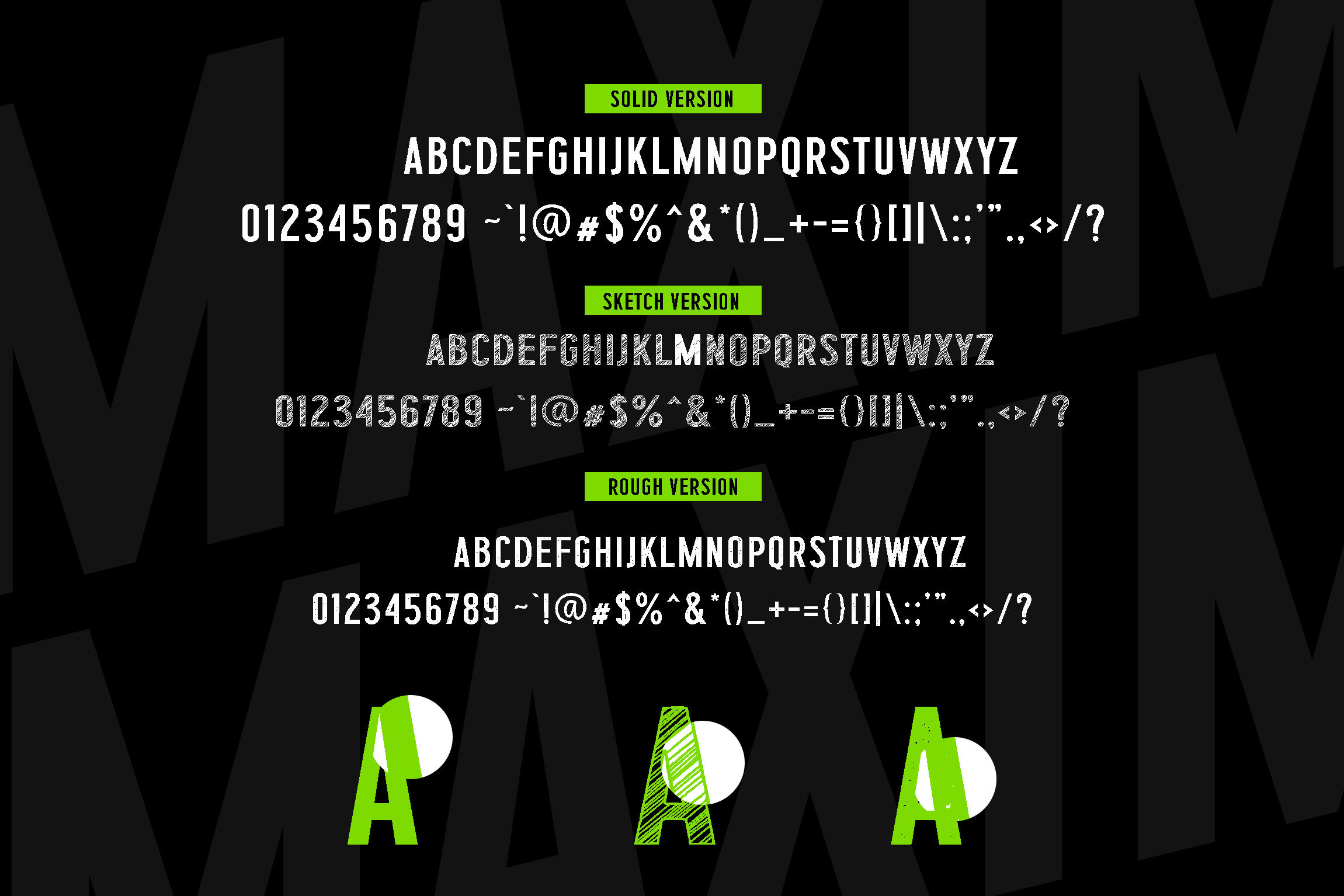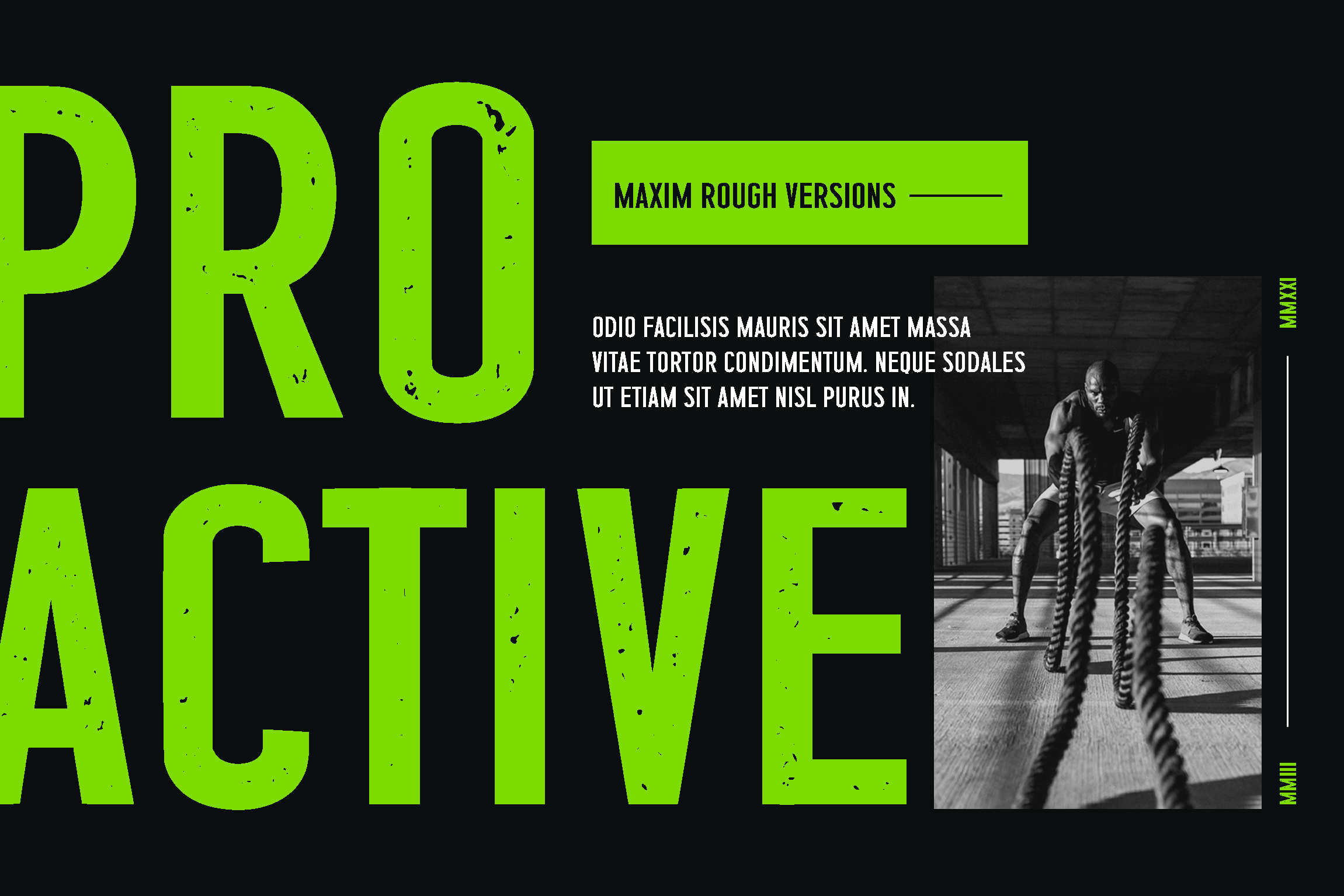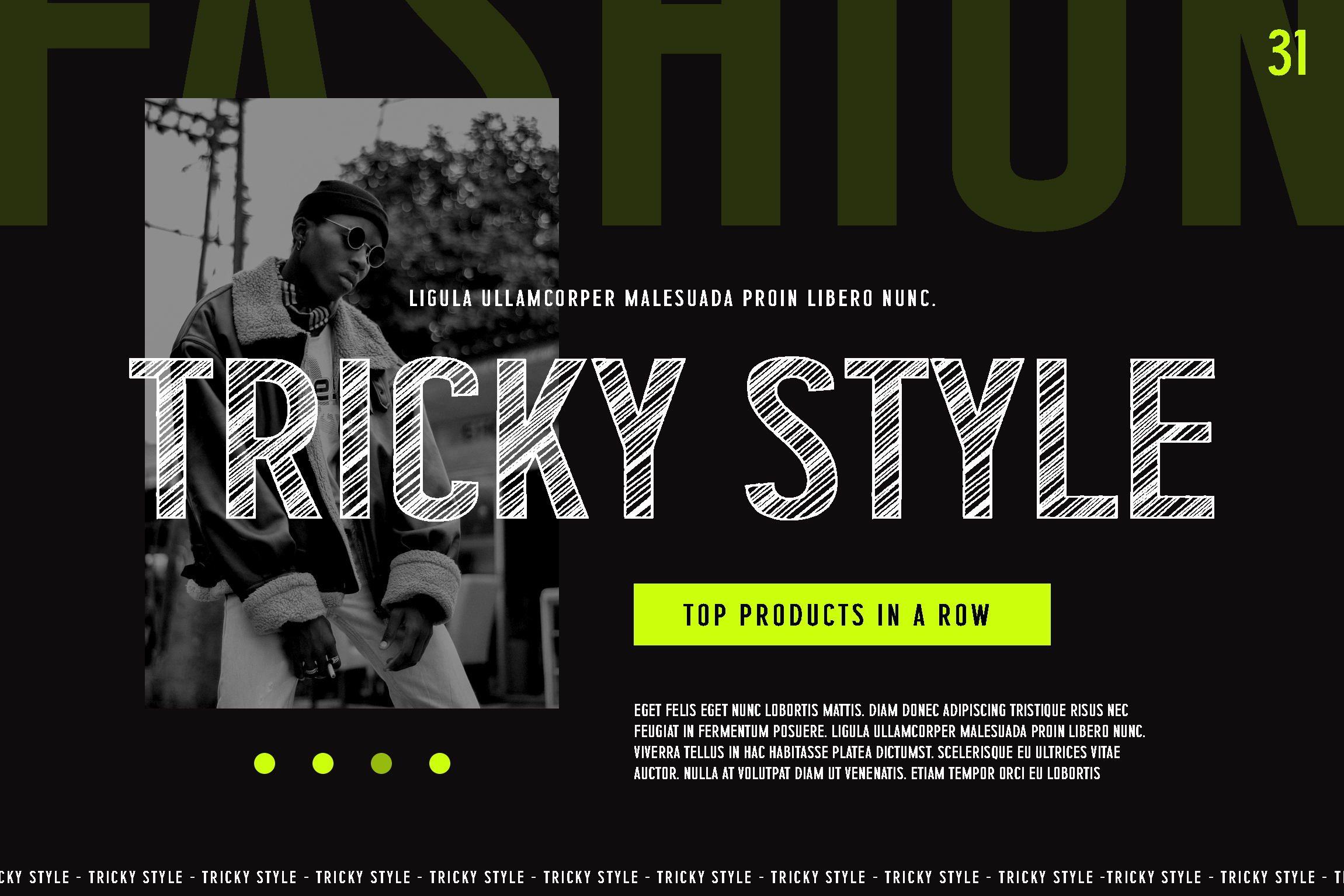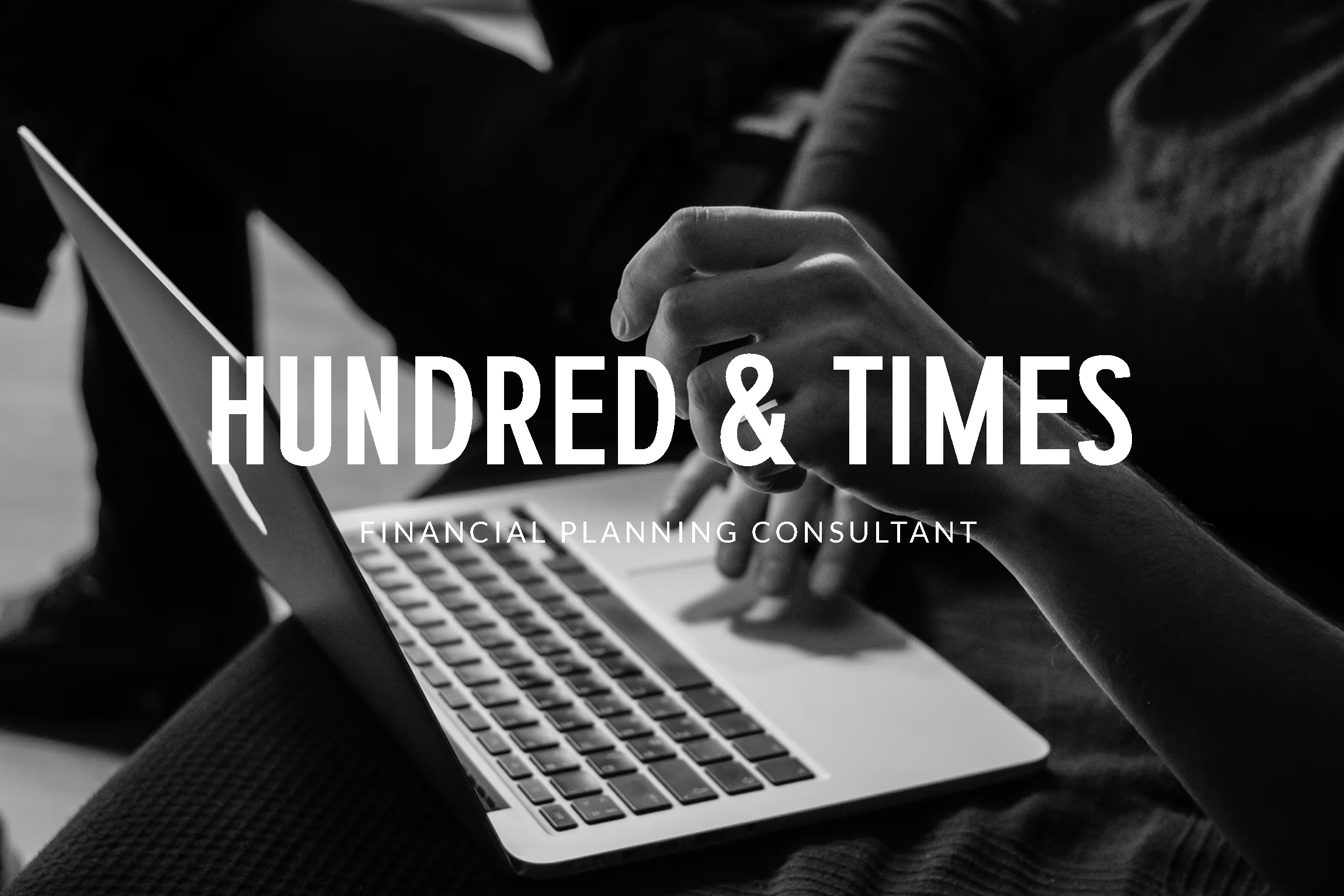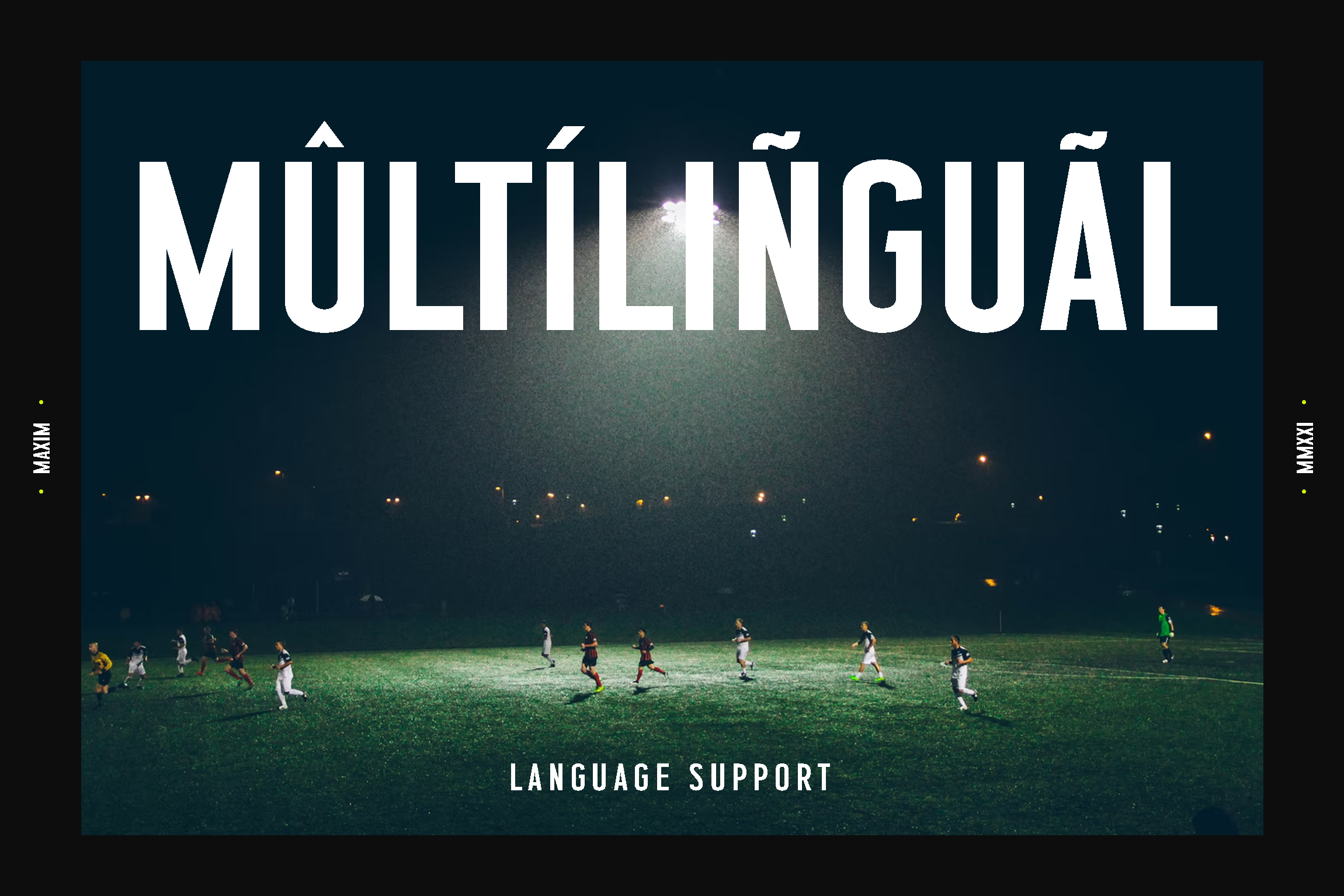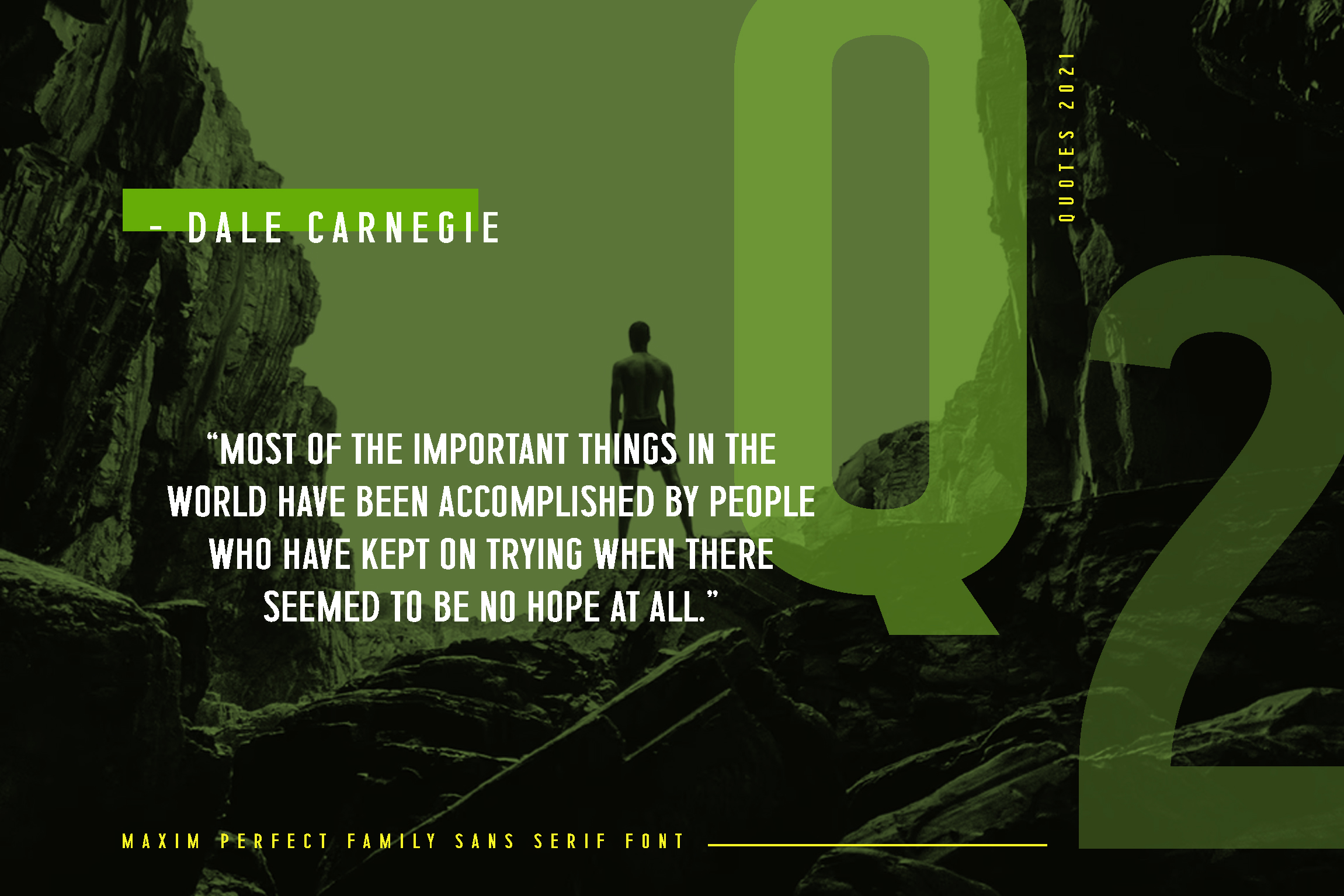
MAXIM Font
MAXIM is a versatile sans-serif typeface that comes in three distinct styles: solid, rough, and sketch. Its bold, modern design makes it perfect for a variety of uses, from dynamic sports branding and impactful logos to eye-catching magazine titles and advertisements. Whether you're creating for print or digital media, MAXIM delivers a powerful presence, ensuring your designs stand out with clarity and style.